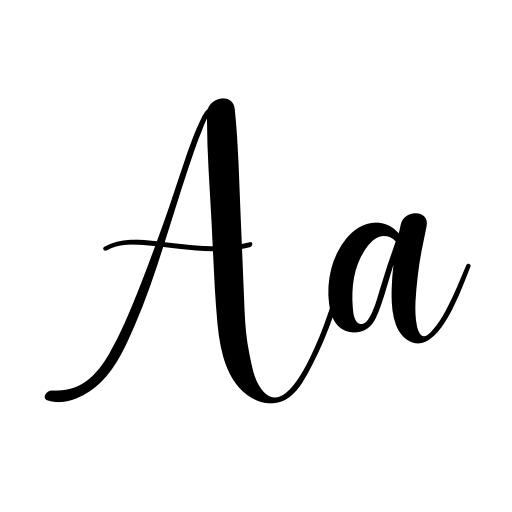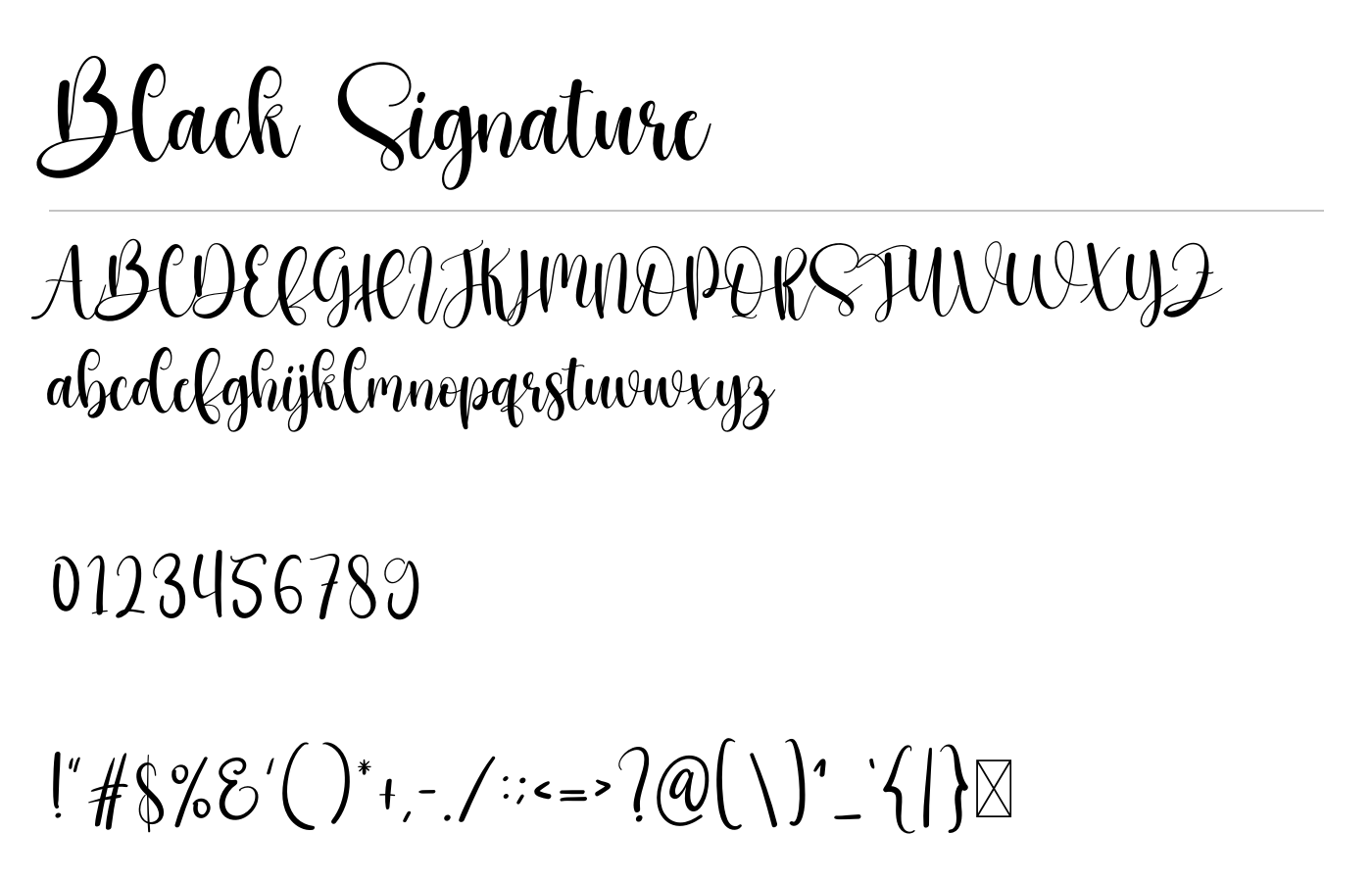
Black Signature is a stylish script font with a flowing, handwritten feel characterized by elegant swashes and varied stroke widths. It combines bold, lively strokes with delicate curls, making it perfect for adding a personal, artistic touch to invitations, branding, and fashion-related design projects. This font’s unique charm and refined style work especially well in logos, headlines, and decorative uses where a sophisticated yet approachable look is desired.
Black Signature Font
About Black Signature Font